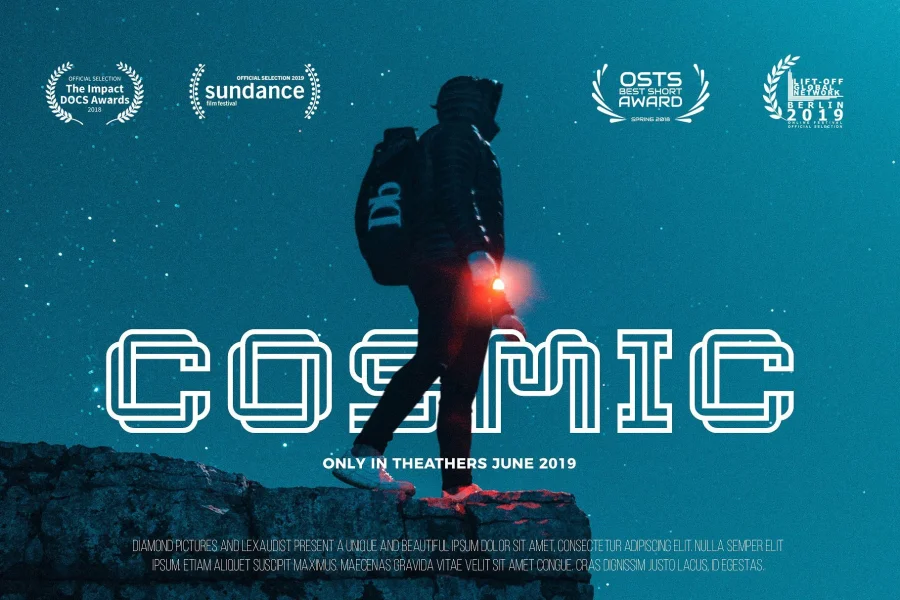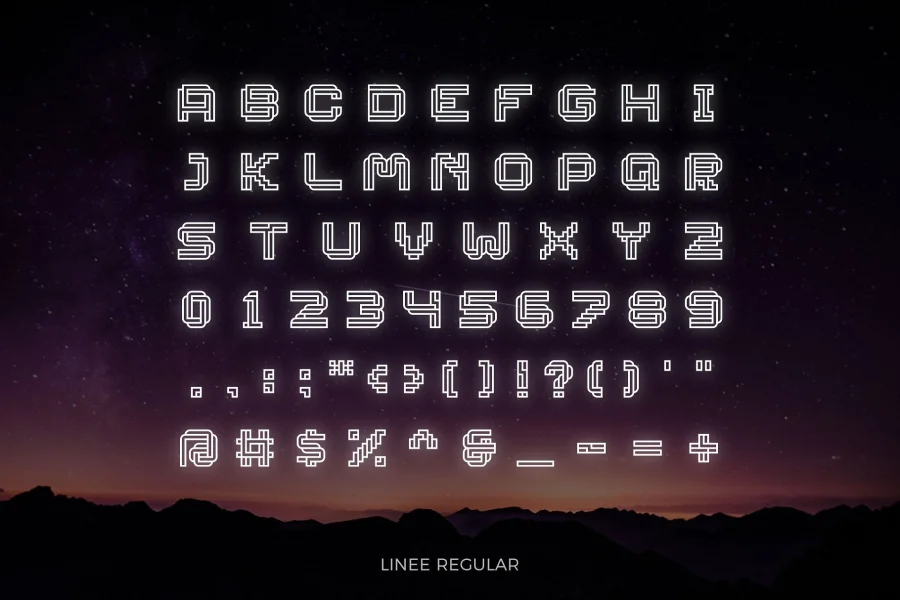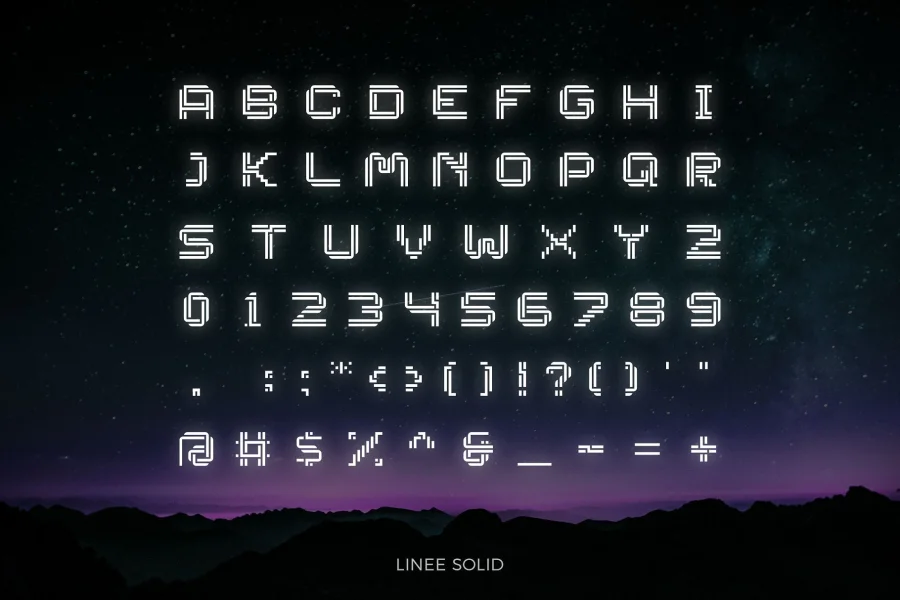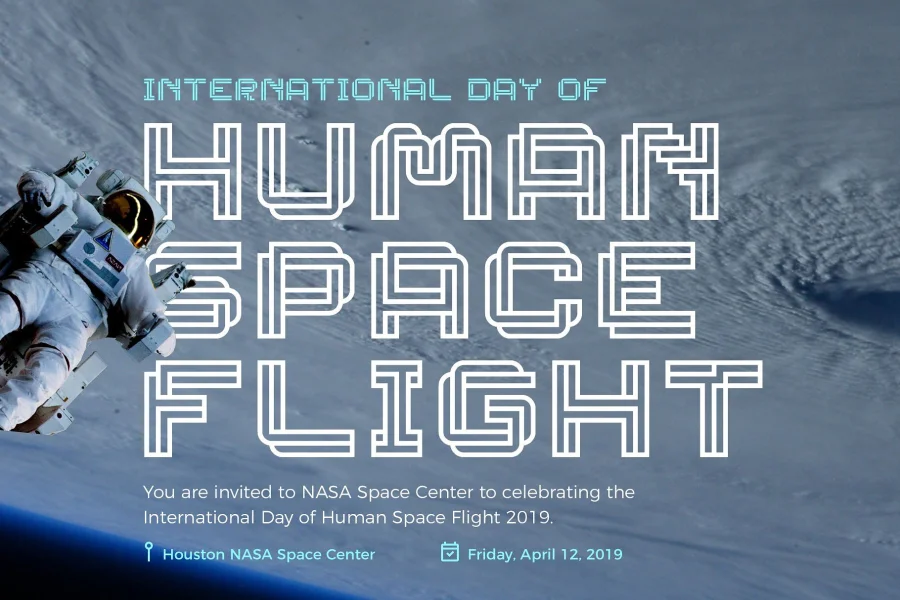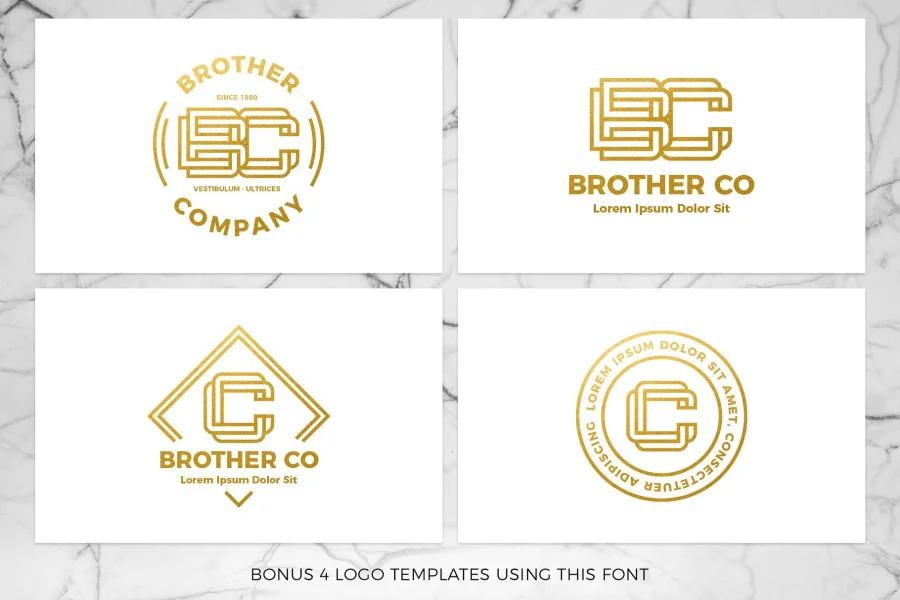
LINEE Font will be perfect for many different projects such as logos & branding, invitation, poster, flyer, wedding designs, social media posts, advertisements, product packaging, product designs, label, photography, watermark, special events or movie poster title.